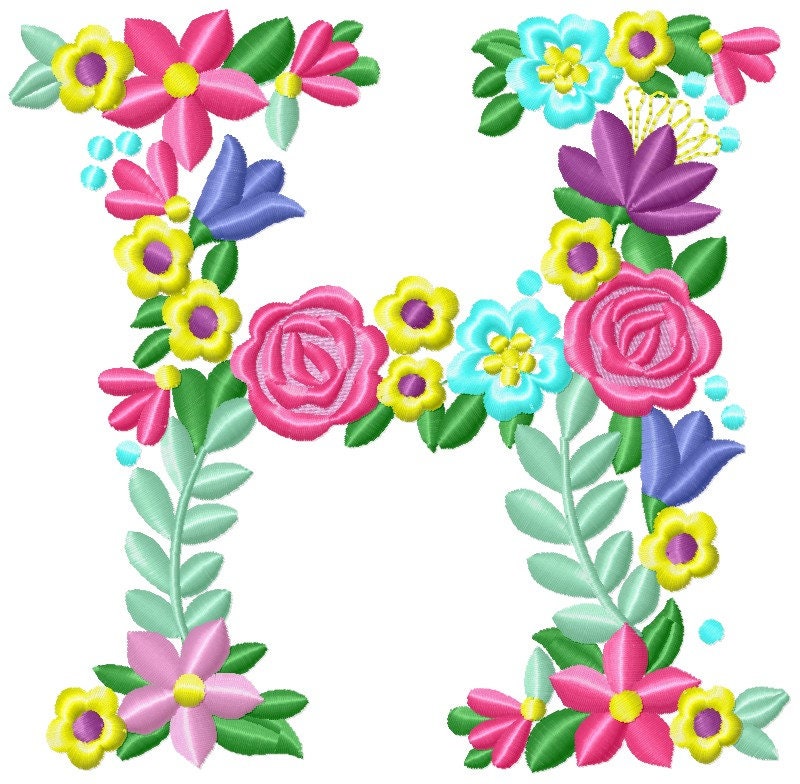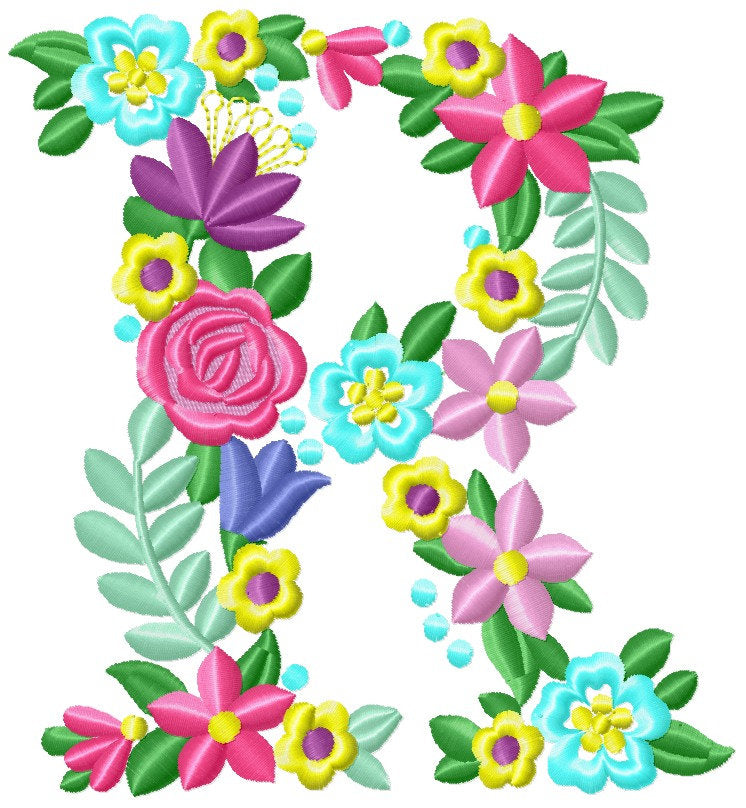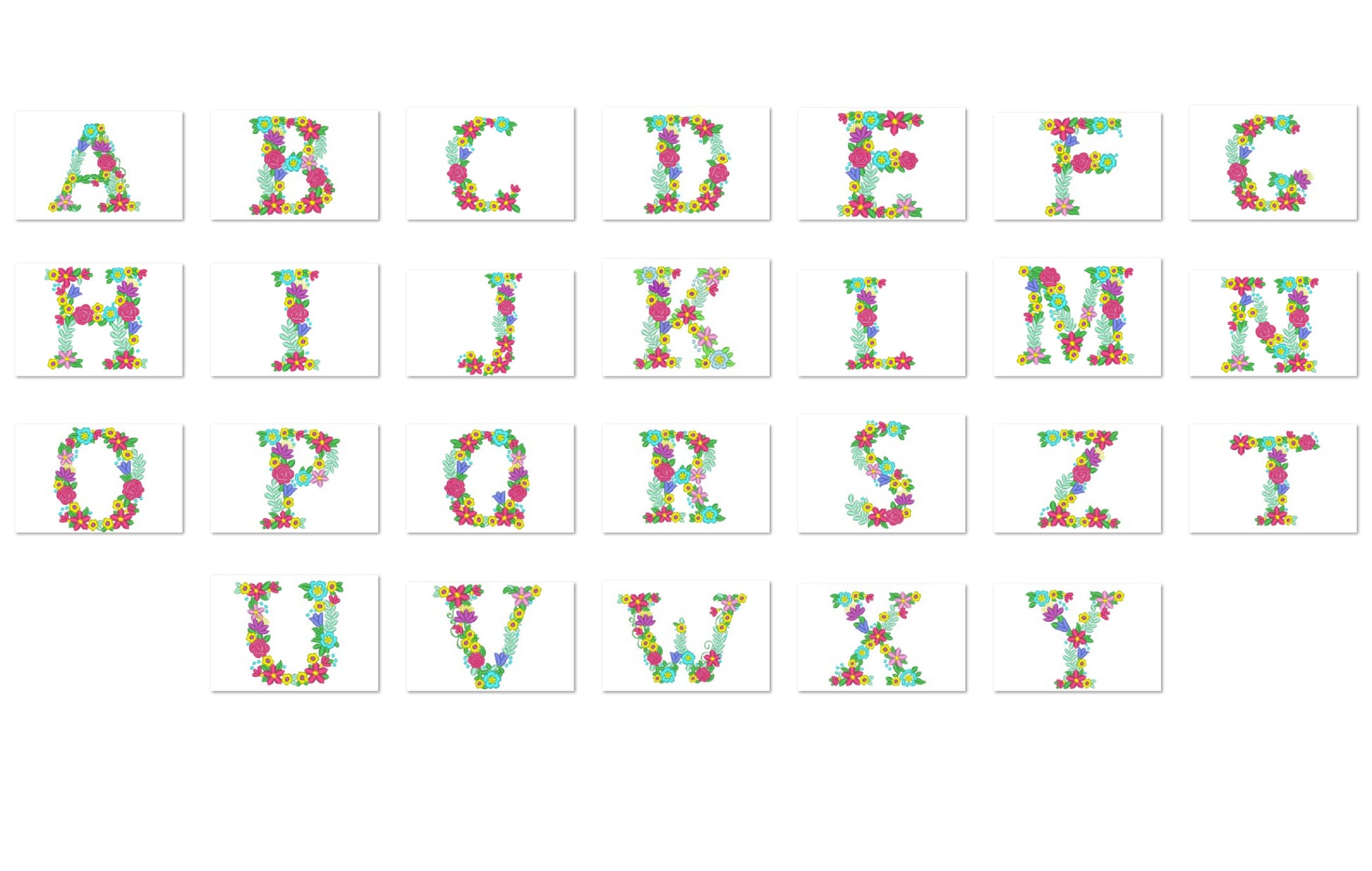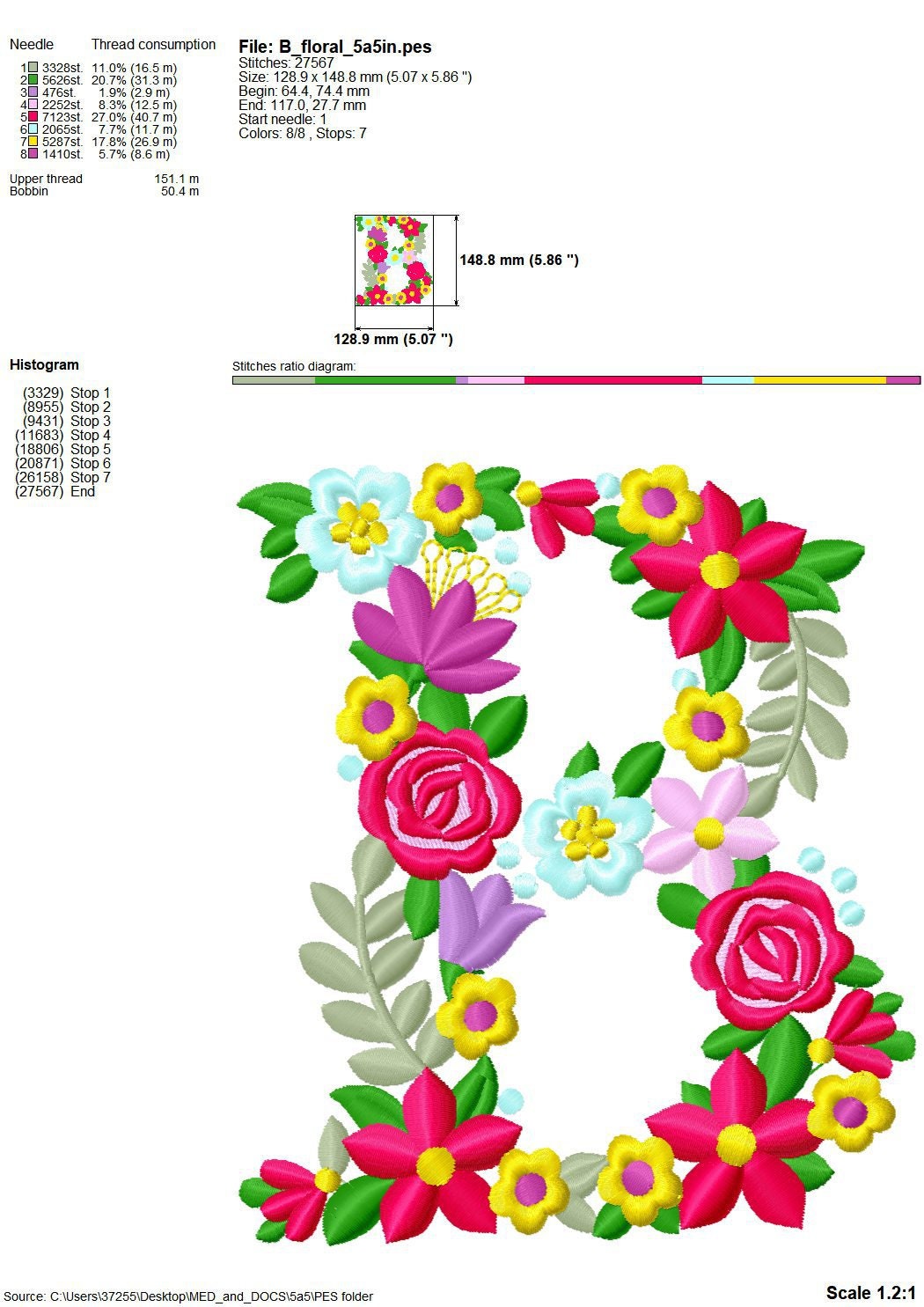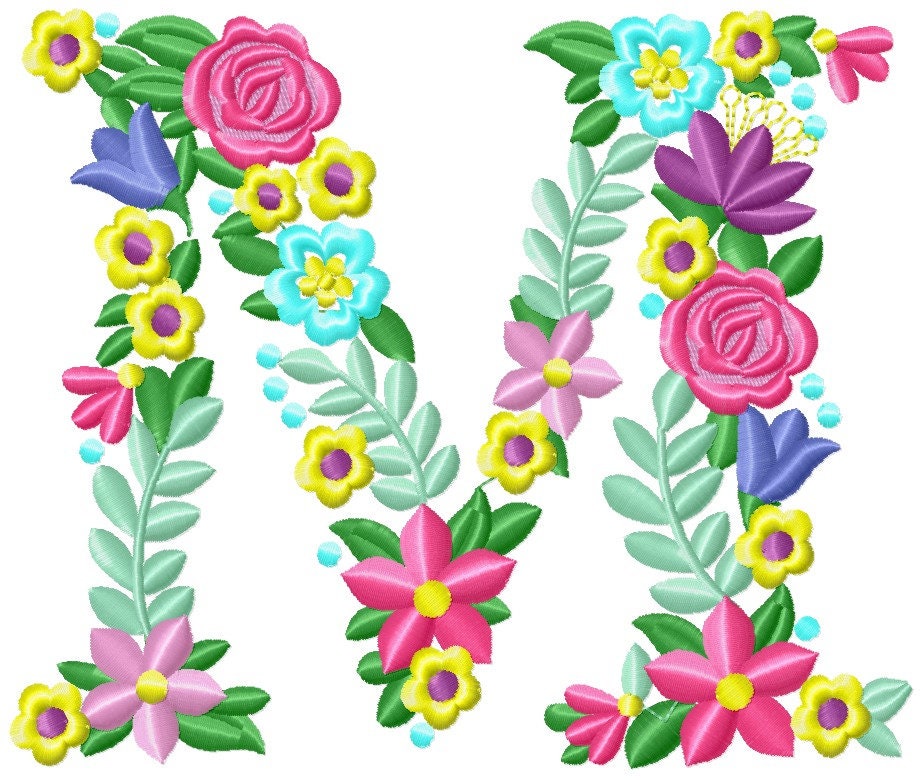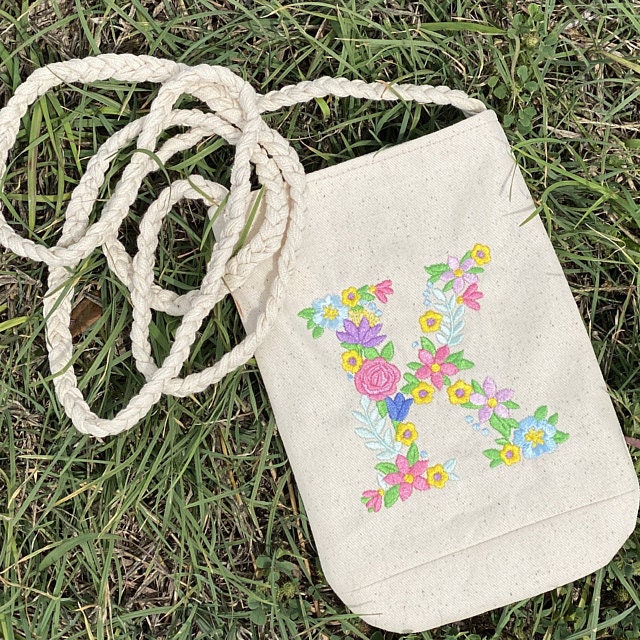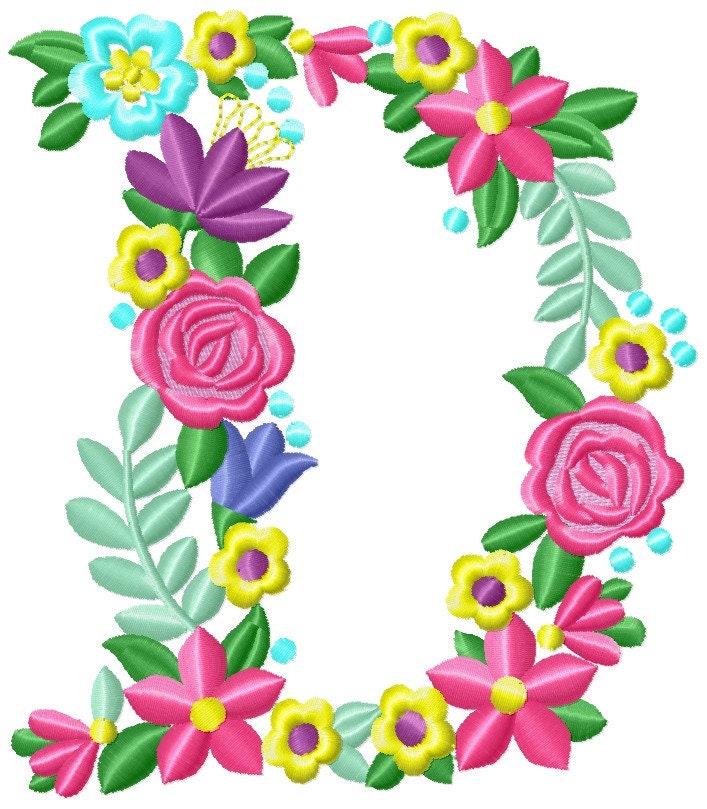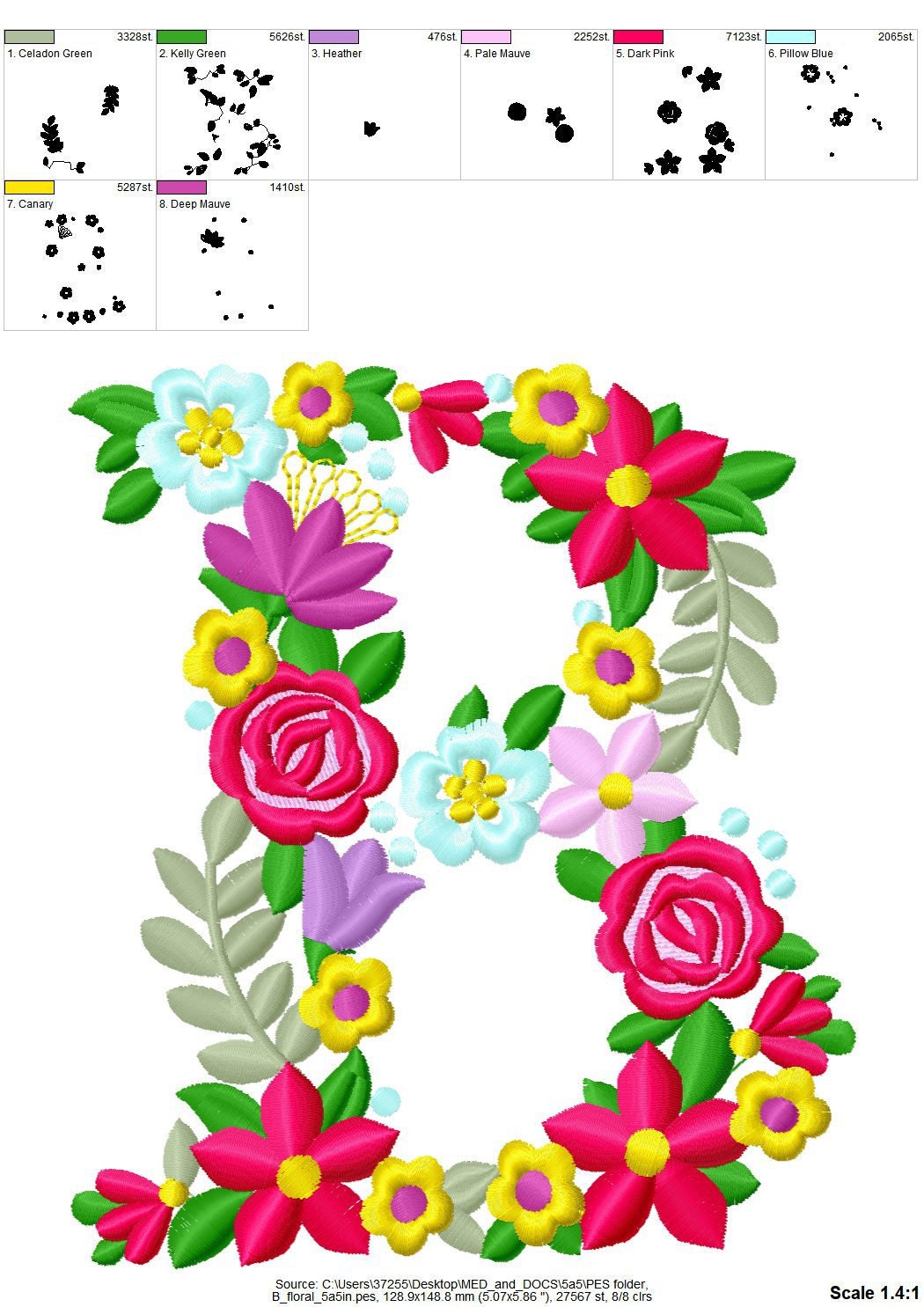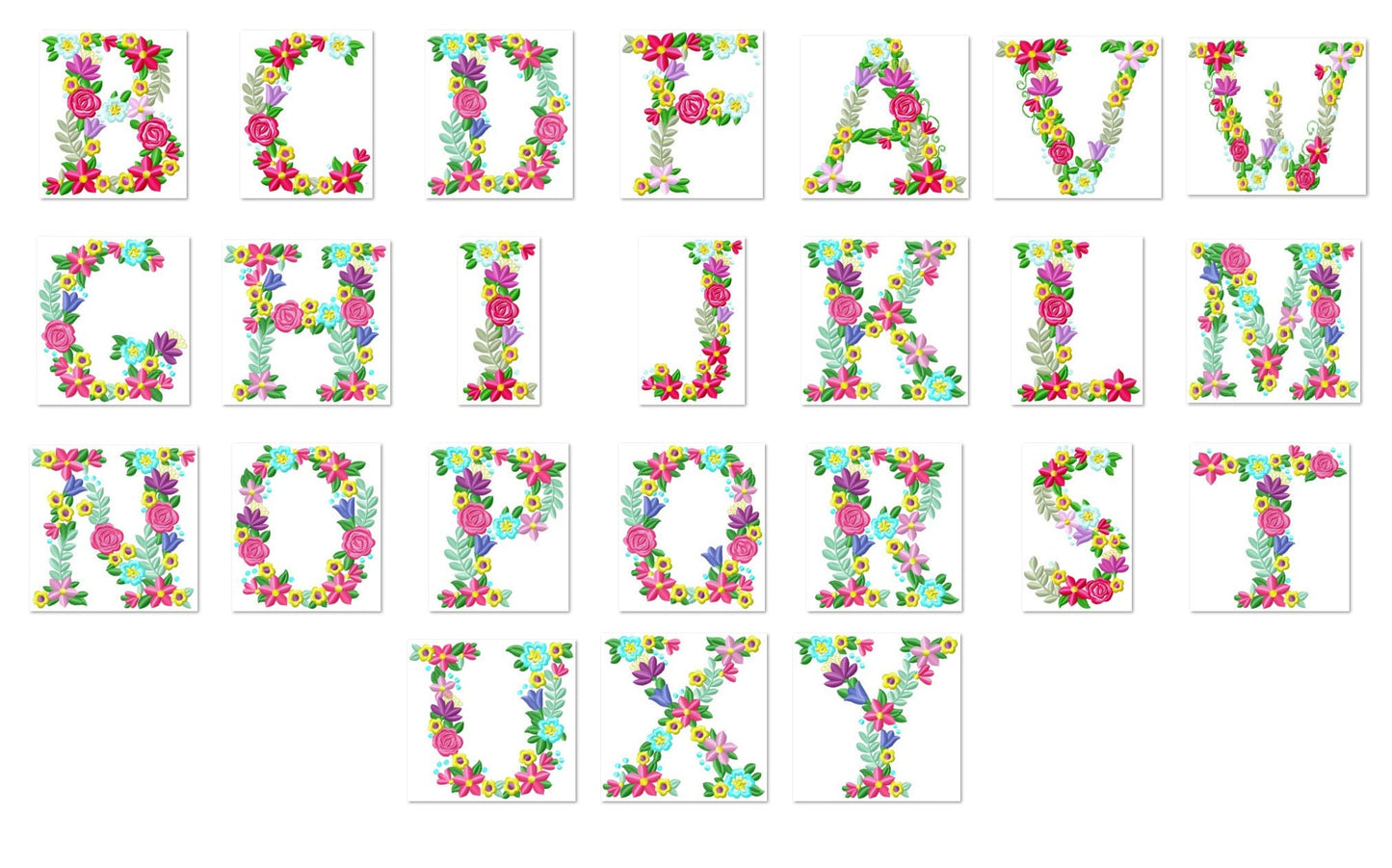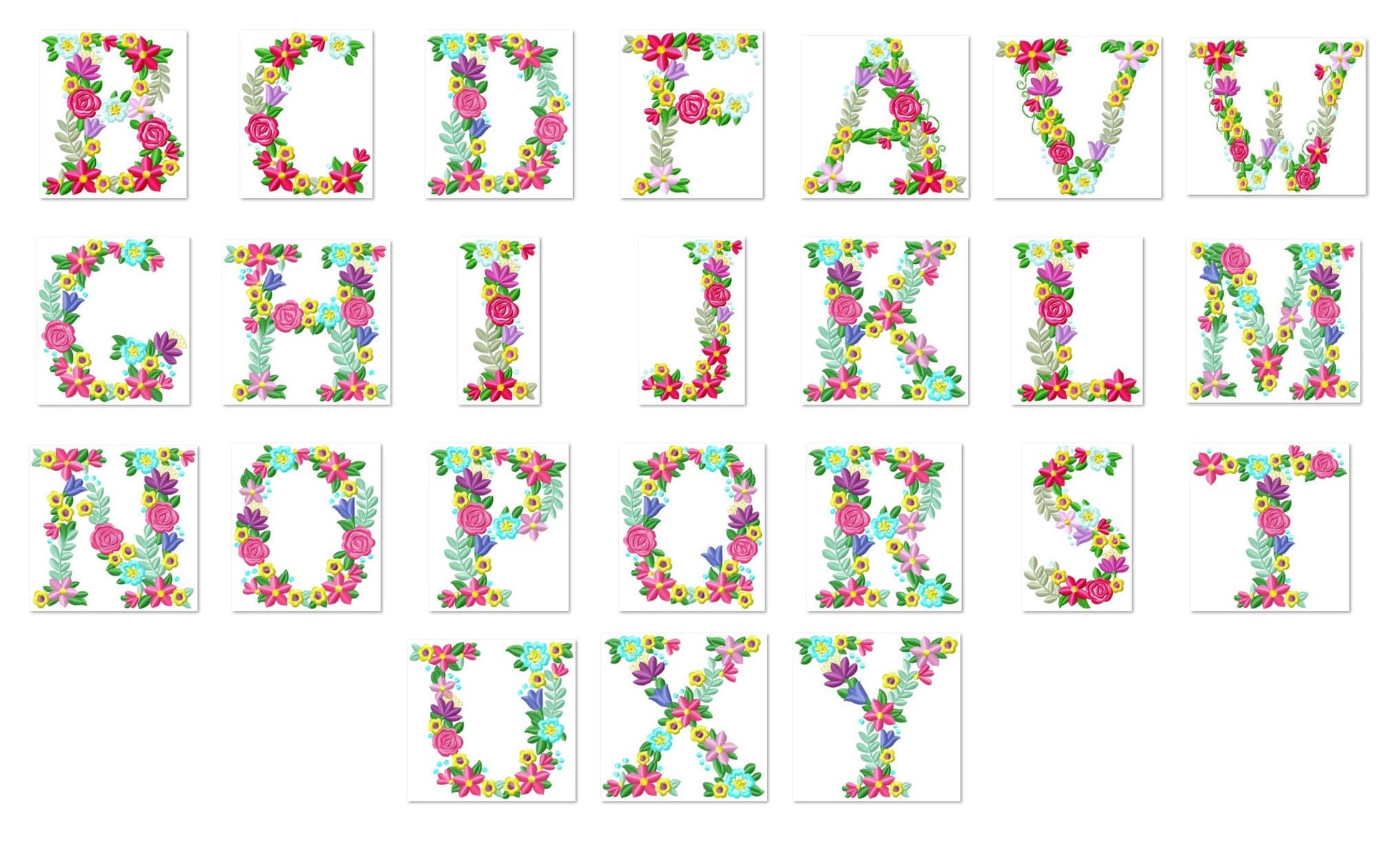
Really pretty, stitched out great!
Stitched out great. The little dots look a bit messy in the smallest size font, but not a big deal.
Love this font! It stitched out beautifully in my daughter's college colors!!
love it Simple, versatile, adds visual impact.
Amazing!! As always!! My go to for all my embroidery fonts! Love Love Love!!
Had a lot of trims
Stitched out beautifully! Very impressed!!!
I love this floral font!
Gorgeous alphabet, the quality of the stich out is amazing! Love it!
So cute! Love this for Easter!
This is so beautiful a must have
The design is really pretty and stitches out amazingly
beatifull font